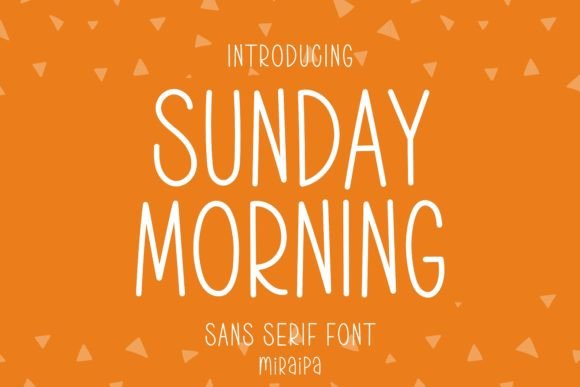
Introducing Sunday Morning, the sans serif font that exudes cuteness and friendliness in every letter. Created by the talented Miraipa, this font is a must-have for anyone looking to elevate their design game.
With its charming appeal, Sunday Morning is versatile and can be used for a wide range of projects, from logo designs to social media posts. It's a font that will instantly grab your audience's attention and leave a lasting impression.
But Sunday Morning isn't just about looks. It's also incredibly functional, making it a font that can be relied on for any project. Its legibility ensures that your message will be conveyed clearly and effectively, while its modern design will keep your designs looking fresh and up-to-date.
Sunday Morning is perfect for anyone who wants to inject a touch of personality into their work. It's a font that radiates warmth and positivity, making it ideal for brands that want to connect with their audience on a deeper level.
Overall, Sunday Morning is a font that should be on everyone's radar. It's a font that will add value to your font library, and its potential to enhance any creation makes it a must-have for any designer. So why wait? Download Sunday Morning today and start creating designs that stand out from the rest!